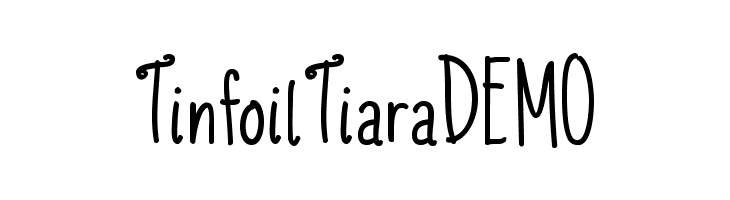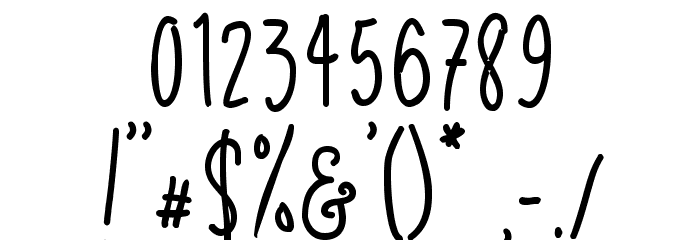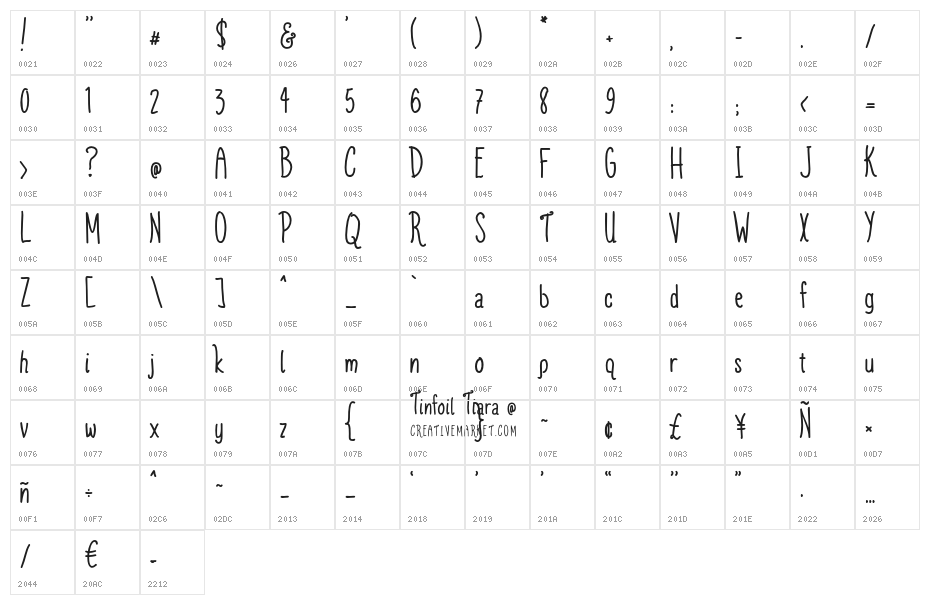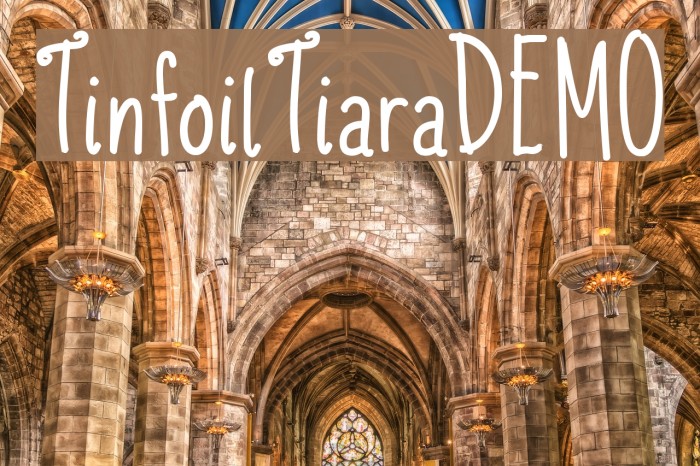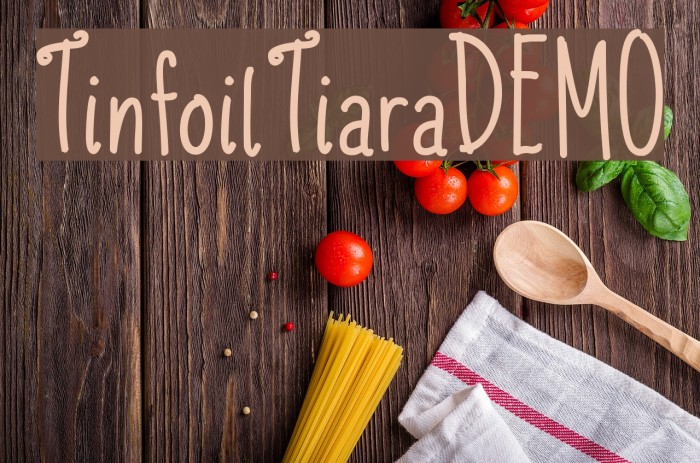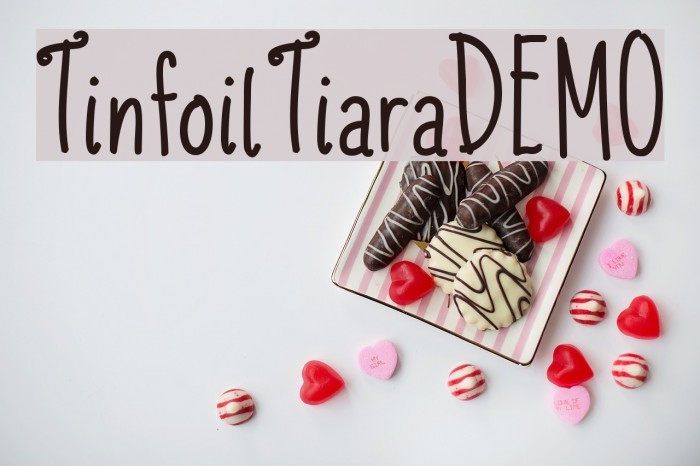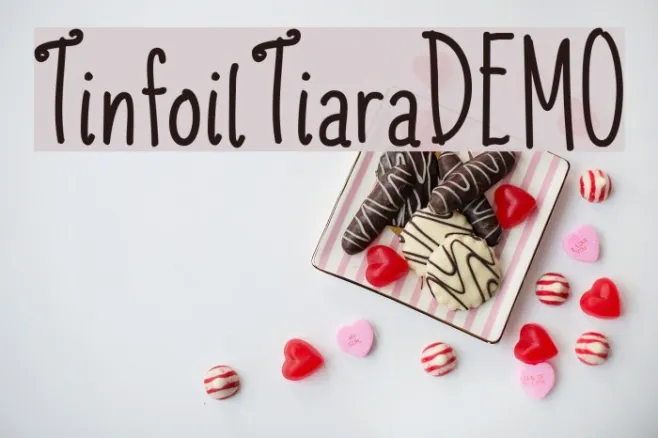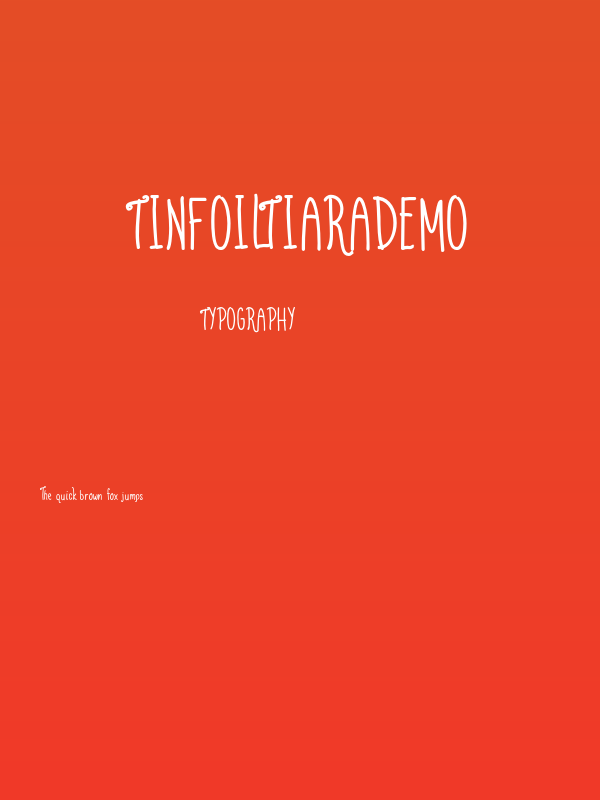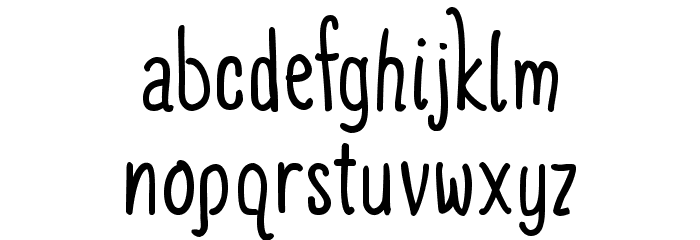
TinfoilTiaraDEMO Font
TinfoilTiaraDEMO Description
This playful and whimsical font features tall, narrow letters with a hand-drawn appearance. The uppercase characters are slightly irregular, adding a charming, informal touch. The lowercase letters maintain a consistent style, with some characters having unique flourishes, such as the 'g' and 'j'. Numbers are rounded and maintain the same playful style as the letters. Special characters are creatively designed, complementing the overall aesthetic. The font's casual and friendly vibe makes it suitable for projects that require a personal, approachable feel.
| Overall Style | Whimsical |
| Use Case | Headlines, Logos, Casual Text |
| Proposed Projects | Ideal for children's books, playful branding, greeting cards, and casual invitations. |